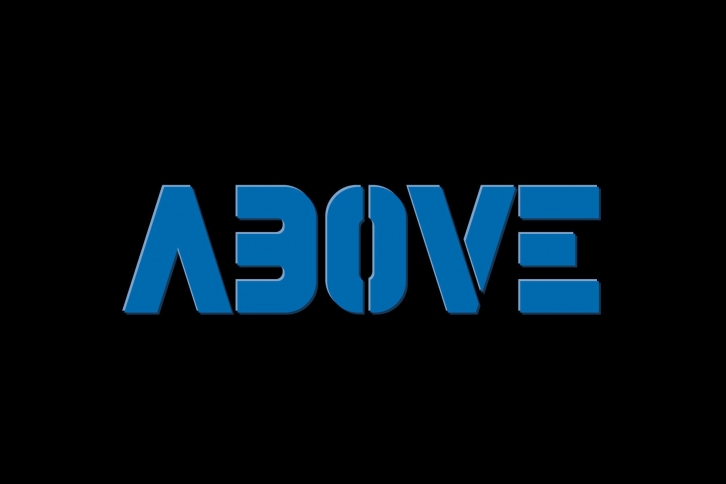
Above is a bold, thick lettered and cool display font. It will elevate a wide range of crafting ideas, from cards, to branding, labels and much more. Add it confidently to your favorite creations and let yourself be amazed by the outcome generated.Â